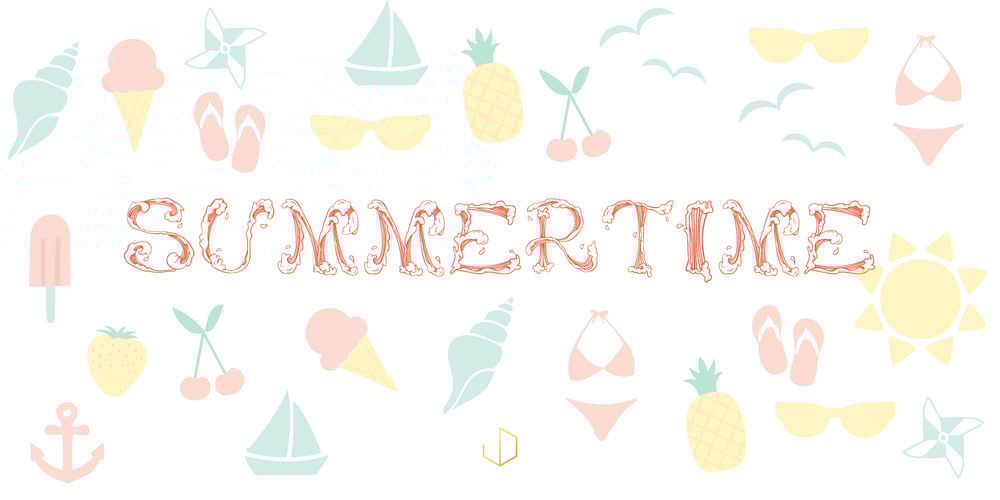
Wave Font Family was designed by Jennifer Delaney and published by Jennifer Delaney Designs. Wave contains 1 styles and family package options. WAVE is characterized by curved lines and intricate details. Each character was individually made in Illustrator and Type Tool using my original illustrations. Wave is a decorative font best used for titles or short bursts of texts in large point settings. The typeface is based on the uppercase letterforms, but I have also created lowercase letters, numbers, and glyphs. The motion lines used in the making of Wave mirror an art deco-style. Inspired by an illustration of a large wave, I was fascinated that by using only lines and solid colors we as artists can depict the translucency and ever-changing movement of waves. I began by delicately sketching out all of the letters using graph paper and micron pens. My work always begins with traditional media. I’m an illustrator, freelance artist, and graphic designer from Chicago, IL. I studied at Texas Christian University, and received my Bachelors of Arts in Graphic Design from Columbia College Chicago. Visit www.jennyddesigns.com for more! ๐